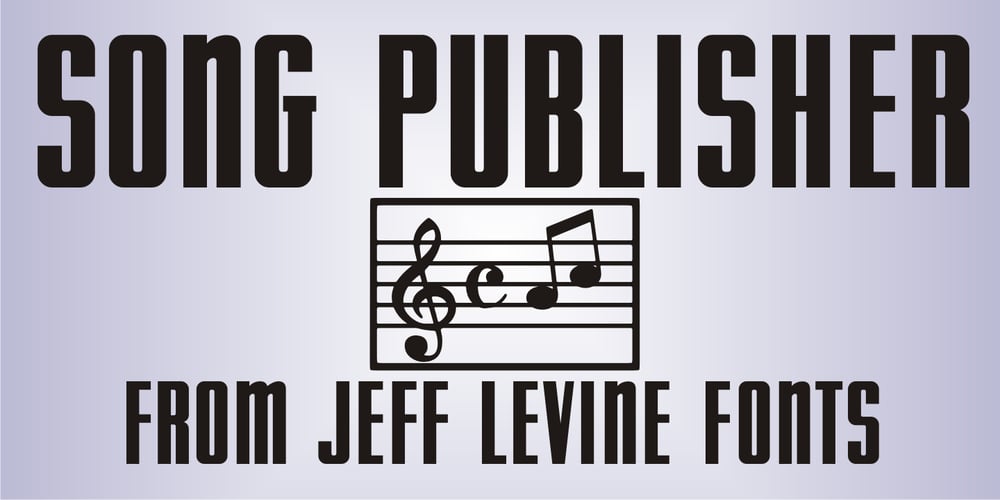
Song Publisher JNL
Song Publisher JNL Font Family was designed by Jeff Levine and published by Jeff Levine. Song Publisher JNL contains 1 styles and family package options. Song Publisher JNL features a design based on the 1945 Art Deco-era hand lettered sheet music title “When the Old Gang’s back on the Corner (Singin’ Sweet Adeline Again)”. It’s a good thing sheet music wasn’t sold by the word count found in song titles, because this twelve word example would have been more costly than titles such as “Nola”, “Tenderly” or “Ciribiribin”.